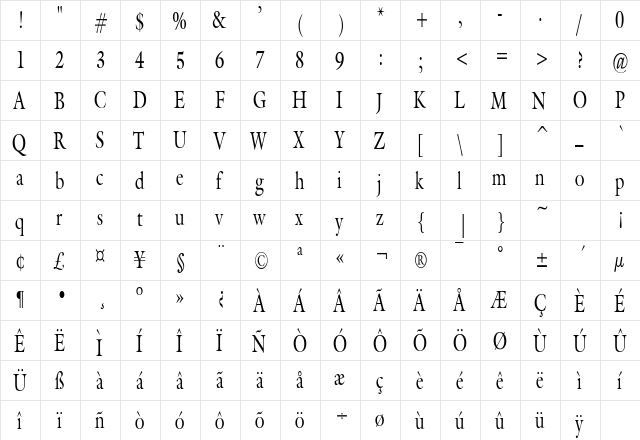
JoulliardCondensed Regular
Design Context for JoulliardCondensed Typeface
JoulliardCondensed takes a measured approach to typography — its balanced proportions and neutral character make it a reliable workhorse for both digital and print work. The condensed width makes it efficient for tight spaces without sacrificing legibility.